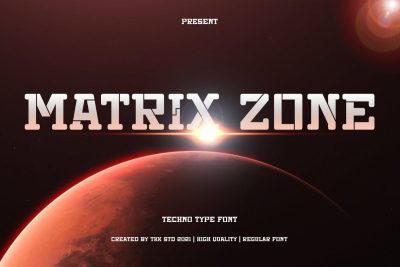
Stencil Font MATRIX ZONE
MATRIX ZONE
If you’re looking for a modern, bold, and futuristic font, Stencil Font MATRIX ZONE is the perfect choice. Inspired by high-tech aesthetics, digital interfaces, and cyberpunk elements, it naturally suits designs needing a strong presence. Moreover, the stencil-like letterforms add a mechanical touch, giving it a rugged yet sleek look. The structured geometry of each letter further enhances precision and sophistication, ensuring readability even in high-impact visuals.
Designed for versatility, Stencil Font MATRIX ZONE seamlessly blends into sci-fi themes, space graphics, gaming logos, and tech branding. In addition, its sharp edges and solid construction make it ideal for futuristic posters, product packaging, and website headers. Whether you’re designing a digital interface, marketing campaign, or sports branding, this font effectively boosts typography with power and modernity. Furthermore, the careful spacing and proportions create a balanced appeal, making every word stand out.
Who Should Use Stencil Font MATRIX ZONE?
This font is perfect for creatives, designers, and businesses wanting a bold statement. Here’s who will benefit the most:
• Graphic Designers: Ideal for futuristic posters, digital ads, and tech-themed presentations.
• Game Developers: Perfect for gaming interfaces, HUDs, and sci-fi environments.
• Technology Brands & Startups: Especially great for AI, robotics, cybersecurity, and software branding.
• Film & Media Creators: Best suited for sci-fi movie titles, action-packed trailers, and digital platforms.
• Clothing and Merchandise Designers: A great fit for streetwear brands, esports jerseys, and tech fashion.
• Event Planners & Advertisers: Enhances posters, flyers, and banners for tech expos or gaming events.
With its futuristic appeal, Stencil Font MATRIX ZONE is more than just a typeface—it’s a true design statement. Whether you’re building a high-energy brand, creating digital experiences, or setting a sci-fi tone, this font effectively unlocks bold typography. With its modern and edgy look, MATRIX ZONE is the perfect choice for brands and businesses looking to make a bold statement. So, try it today and give your designs a next-level edge!
MATRIX ZONE comes with high tech look with modern cut-out style, represent an automatic and highly crafted technology for all of us.